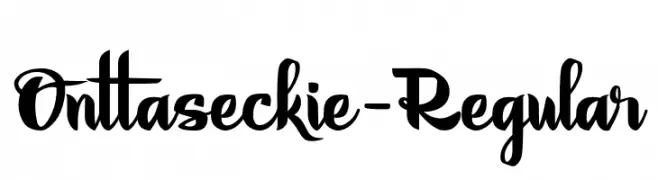
A bold, expressive handwritten font with dynamic curves and playful swashes.
( Fonts by The Scriptorium - Dave Nalle )
A modern, geometric sans-serif font with clean lines and uniform strokes.
( Fonts by Maurice The Hormone Monster AUTTP )
A textured, geometric font with a rugged, architectural style.
( Fonts by Vladimir Nikolic )
A bold, decorative font with a three-dimensional effect and geometric shapes.
( Fonts by Tero Viitamäki )
A bold, playful handwritten font with dynamic strokes and a lively appearance.
A playful and irregular font with quirky, uneven letterforms.
( Fonts by Daniel Gauthier )
A playful, bold font with whimsical, cartoonish letterforms.
A geometric, fixed-width font with a mosaic-like pattern, offering a modern and artistic style.